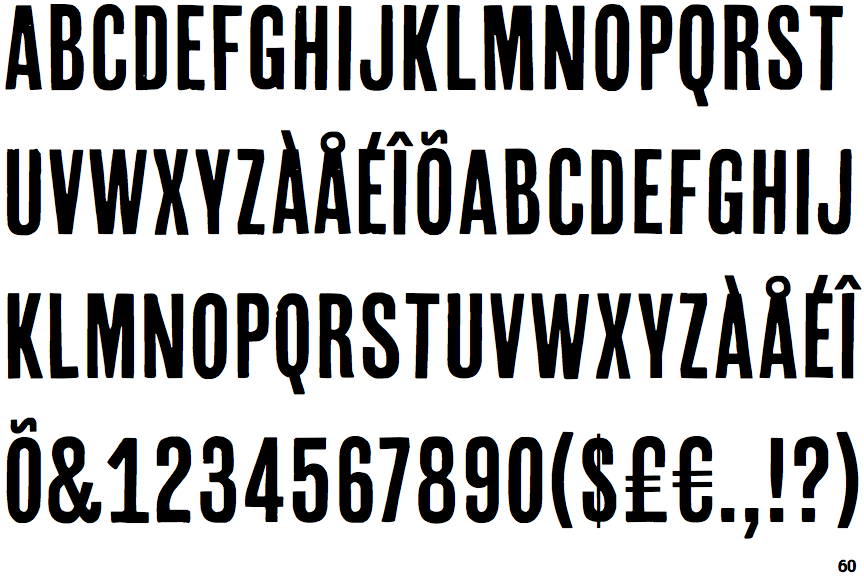
Cheap Pine Font . Looking for cheap pine regular fonts? Download cheap pine sans font. A decorative typeface with 3 styles, available from adobe fonts for sync and web use. Explore cheap pine designed by hannes von döhren at adobe fonts. You can use cheap pine sans & cheap pine shadow together to influence the color of the shadows. Cheap pine is a simple one weight font with a shadow effect and a hand made appearance. Cheap pine™ is a tribute to the wood type of the eighteenth century and nineteenth century. Cheap pine w00 sans download is available free from 8font.com. Cheap pine is a tribute to the wood type of the eighteenth century and nineteenth century. It is inspired by the wood type of the eighteenth and nineteenth century and contains arrows, hands, stars. Cheap pine sans by adobe systems incorporated. Click to find the best 1 free fonts in the cheap pine regular style. You can use cheap pine sans & cheap pine shadow together to influence the color of the shadows. Every font is free to download! Cheap pine w00 sans is a sans serif type font that can be used on any device such as pc, mac, linux, ios and android.
Cheap Pine Font Cheap pine sans by adobe systems incorporated. Download cheap pine sans font. Explore cheap pine designed by hannes von döhren at adobe fonts. Cheap pine is a simple one weight font with a shadow effect and a hand made appearance. It is inspired by the wood type of the eighteenth and nineteenth century and contains arrows, hands, stars. Cheap pine is a tribute to the wood type of the eighteenth century and nineteenth century. Click to find the best 1 free fonts in the cheap pine regular style. Cheap pine w00 sans download is available free from 8font.com. You can use cheap pine sans & cheap pine shadow together to influence the color of the shadows. Cheap pine w00 sans is a sans serif type font that can be used on any device such as pc, mac, linux, ios and android. A decorative typeface with 3 styles, available from adobe fonts for sync and web use. You can use cheap pine sans & cheap pine shadow together to influence the color of the shadows. Every font is free to download! Cheap pine sans by adobe systems incorporated. Looking for cheap pine regular fonts? Cheap pine™ is a tribute to the wood type of the eighteenth century and nineteenth century.
Cheap Pine™ (Typeface) on Behance Cheap Pine Font Every font is free to download! Cheap pine is a simple one weight font with a shadow effect and a hand made appearance. Cheap pine™ is a tribute to the wood type of the eighteenth century and nineteenth century. A decorative typeface with 3 styles, available from adobe fonts for sync and web use. You can use cheap pine sans. Cheap Pine Font.
Cheap Pine Font A tribute to the wood type of the eighteenth and Cheap Pine Font A decorative typeface with 3 styles, available from adobe fonts for sync and web use. You can use cheap pine sans & cheap pine shadow together to influence the color of the shadows. Every font is free to download! Looking for cheap pine regular fonts? You can use cheap pine sans & cheap pine shadow together to influence the color. Cheap Pine Font.
Cheap Pine Font Fuentes Degradado Sans Serif Alfabeto Letras Caligrafía Cheap Pine Font Cheap pine is a tribute to the wood type of the eighteenth century and nineteenth century. Cheap pine is a simple one weight font with a shadow effect and a hand made appearance. Cheap pine™ is a tribute to the wood type of the eighteenth century and nineteenth century. Click to find the best 1 free fonts in the cheap. Cheap Pine Font.
Cheap Pine Font Fonts Gradient Sans Serif Alphabet Letters Calligraphy Cheap Pine Font It is inspired by the wood type of the eighteenth and nineteenth century and contains arrows, hands, stars. Looking for cheap pine regular fonts? Cheap pine is a tribute to the wood type of the eighteenth century and nineteenth century. Download cheap pine sans font. Click to find the best 1 free fonts in the cheap pine regular style. Cheap. Cheap Pine Font.
Cheap Pine Font Fonts Gradient Sans Serif Alphabet Letters Calligraphy Cheap Pine Font You can use cheap pine sans & cheap pine shadow together to influence the color of the shadows. Cheap pine™ is a tribute to the wood type of the eighteenth century and nineteenth century. Explore cheap pine designed by hannes von döhren at adobe fonts. Click to find the best 1 free fonts in the cheap pine regular style. It. Cheap Pine Font.
Pine Font by vladderkach on Envato Elements Fonts, Download fonts Cheap Pine Font Cheap pine sans by adobe systems incorporated. Cheap pine w00 sans is a sans serif type font that can be used on any device such as pc, mac, linux, ios and android. Cheap pine is a tribute to the wood type of the eighteenth century and nineteenth century. You can use cheap pine sans & cheap pine shadow together to. Cheap Pine Font.
Cheap Pine Font Fonts Gradient Sans Serif Alphabet Letters Calligraphy Cheap Pine Font Cheap pine is a tribute to the wood type of the eighteenth century and nineteenth century. It is inspired by the wood type of the eighteenth and nineteenth century and contains arrows, hands, stars. Cheap pine™ is a tribute to the wood type of the eighteenth century and nineteenth century. Download cheap pine sans font. Cheap pine w00 sans download. Cheap Pine Font.